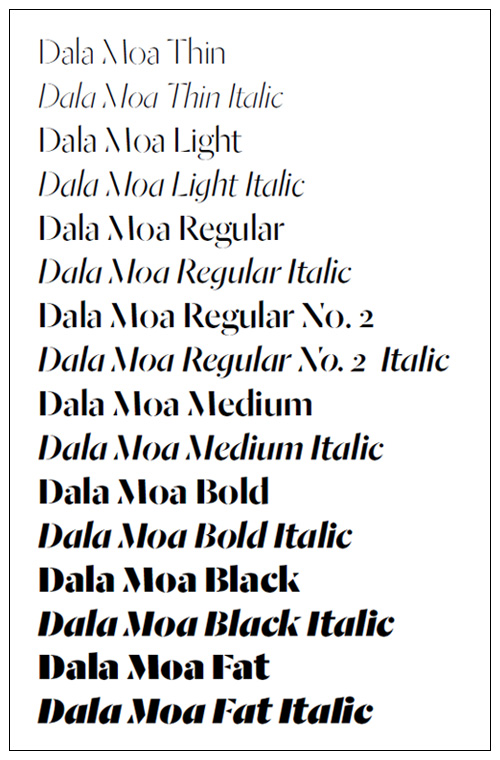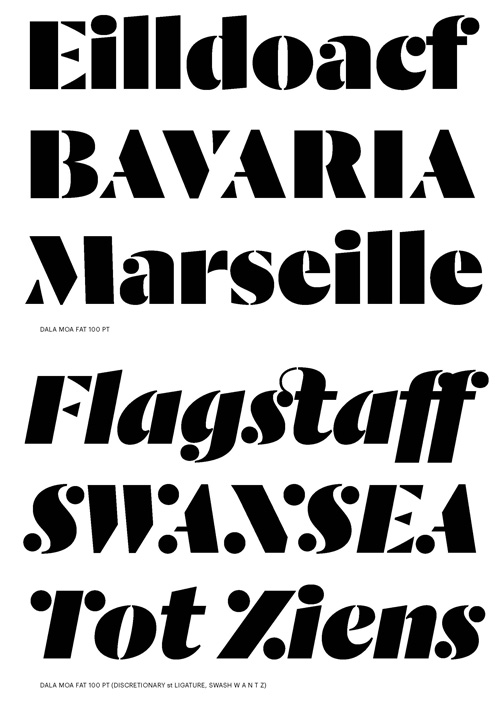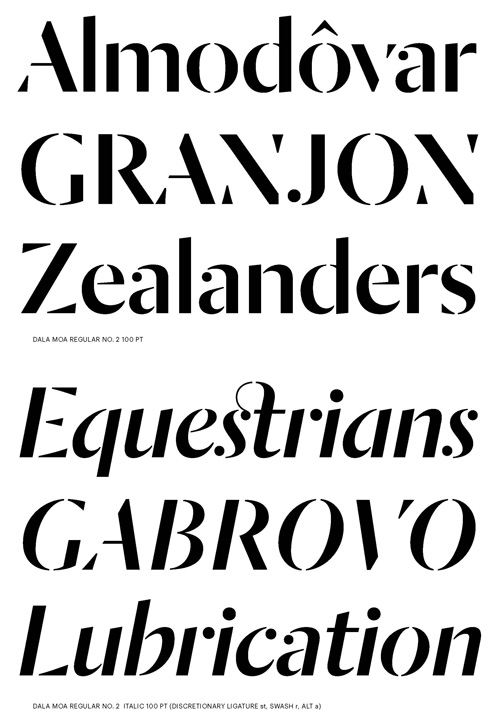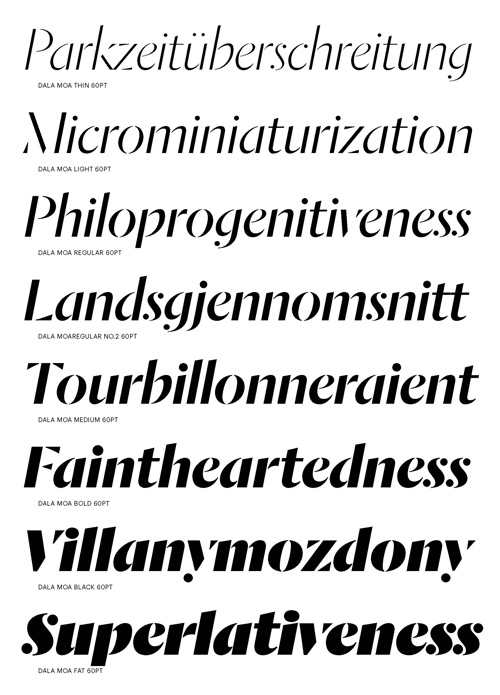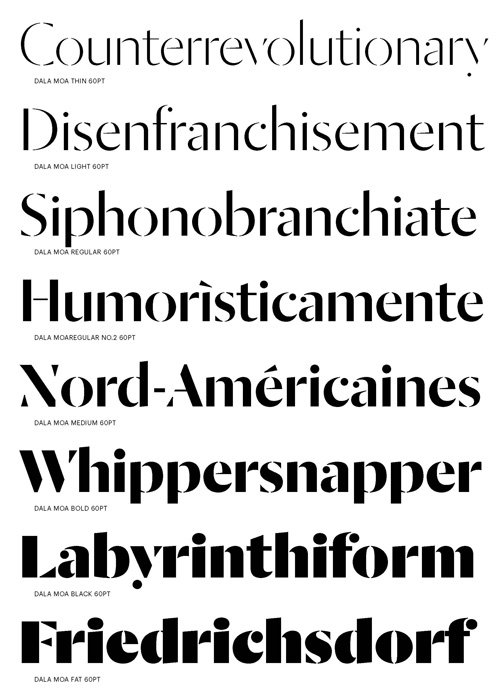
Dala Moa - 16 Styles Font Family
- Dala Moa is a sans serif stencil typeface for display, sharing the proportions of its cousin Dala Floda. It takes the same inspiration – the erosion of letters on stones – but takes the idea one stage further with the removal of serifs, revealing basic structures. The forms and proportions of the romans come directly from Dala Floda, while the italic diverges into the upright humanist tradition. The lighter weights show the influence Jan Tschichold’s stencil experiments of the 1930s, and in particular his lesser-known display face Saskia released by Schelter & Giesecke.